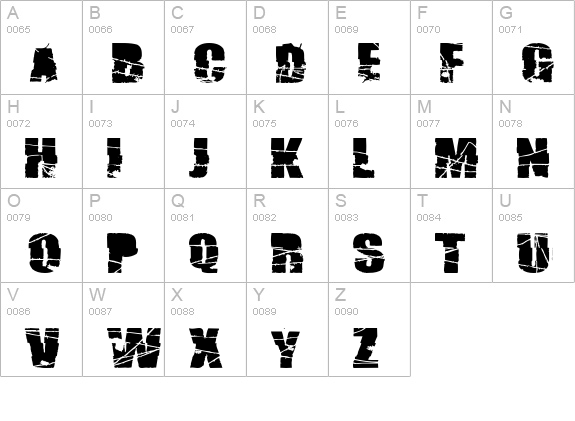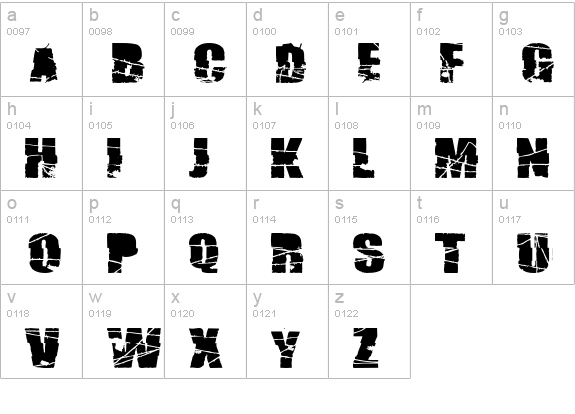
Broken74 font is a unique and eye-catching display typeface that exudes a sense of edgy sophistication. Its bold and irregular letterforms give off a distinct grunge vibe, making it perfect for projects that require a touch of rebelliousness. This font is perfect for posters, album covers, branding designs, and more. Its broken and distressed appearance adds a raw and gritty aesthetic to any design, making it stand out from the crowd. Best of all, Broken74 font is available for free download at FontsMarket.com. So, whether you're a designer looking to add some edge to your creations or simply someone who appreciates cutting-edge typography, be sure to check out this font and unleash your creativity today.